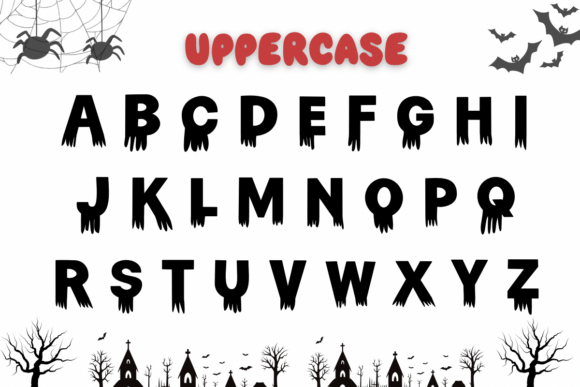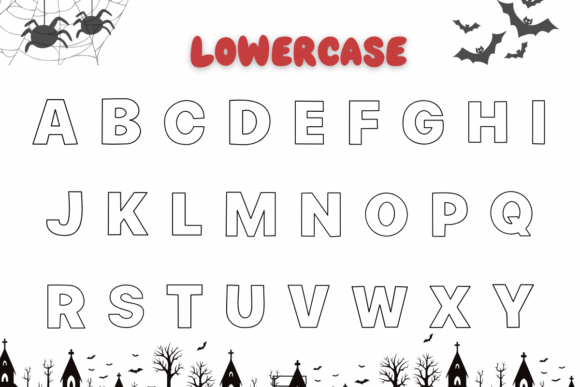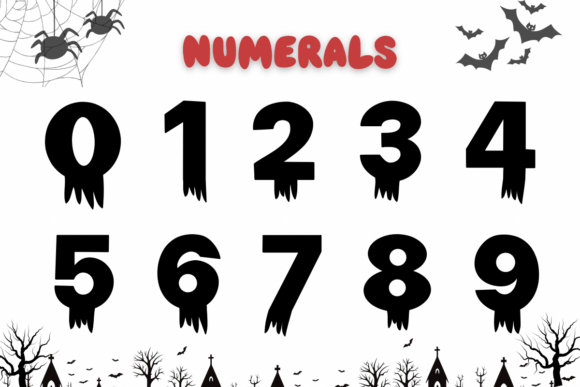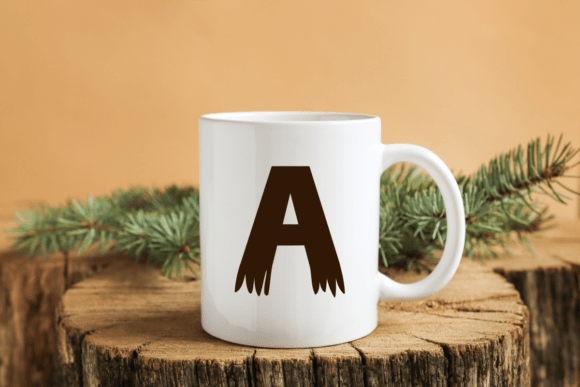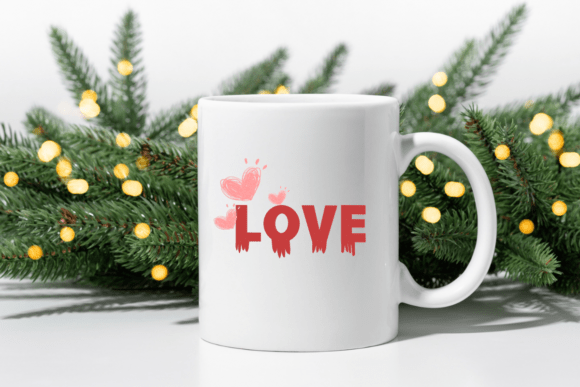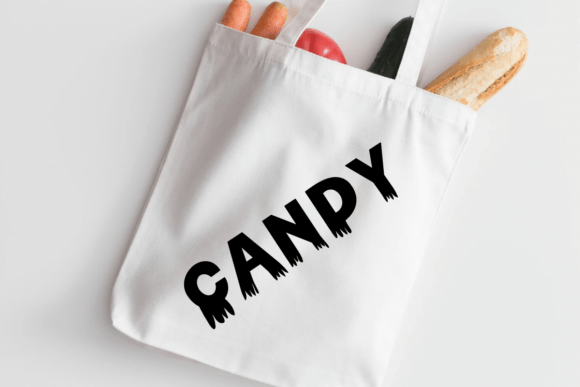
Introduction to Halloween Ink Drops Font
As a designer, have you ever found yourself stuck in a creative rut, searching for the perfect font to bring your high-quality Halloween-themed project to life? Perhaps you’re brainstorming ideas for a spooky social media campaign or designing a hauntingly beautiful poster for a local haunted house attraction. Whatever your creative endeavor may be, you’re in luck – the Halloween Ink Drops Font is here to add a touch of eerie elegance to your design.
This free download is a game-changer for designers looking for a unique and versatile design resource that’s sure to captivate audiences. With its bold, dripping ink-like details and clean geometric base, the Halloween Ink Drops Font is perfect for creating eye-catching graphics with a transparent background that’s sure to stand out.
Whether you’re working on a children’s spooky storybook or designing a haunted house banner, the Halloween Ink Drops Font is an ideal choice for adding a touch of Halloween magic to your design. In this article, we’ll delve deeper into the world of this enchanting font and explore its many uses and applications.
Key Features of Halloween Ink Drops Font
- Unique, high-quality design ideal for creative projects, such as spooky Halloween invitations, greeting cards, and party decorations.
- Perfect for designers and crafters looking to add a spooky touch to their creative projects, with a unique and creative design that’s sure to stand out.
Honest Review: Halloween Ink Drops Font
I recently stumbled upon the Halloween Ink Drops Font, and I’m excited to share my thoughts on this spooky design resource. As a designer, I’m always on the lookout for high-quality fonts to elevate my creative projects. This font definitely fits the bill.
- ✨ Unique and creative design: The Halloween Ink Drops Font has a one-of-a-kind aesthetic that’s perfect for adding a touch of whimsy to your designs.
- ✨ Transparent background: The font’s transparent background makes it easy to layer over other design elements and create a seamless look.
However, I do have a few caveats to mention:
- ⚠️ Limited character set: The font’s character set is relatively limited, which may not be suitable for complex text-based designs.
- ⚠️ Not ideal for small text: The font’s design may not be readable at small text sizes, so it’s best to use it for larger headings or titles.
Overall, I’m impressed with the Halloween Ink Drops Font’s unique design and transparent background. While it may have some limitations, it’s a great resource for designers looking to add a touch of Halloween flair to their creative projects.
How to Use Halloween Ink Drops Font
The Halloween Ink Drops Font is a high-quality design resource perfect for adding a spooky touch to your creative project. This font features a unique, hand-drawn design with a transparent background, making it easy to use in a variety of design applications.
You can use the Halloween Ink Drops Font in a variety of design applications, including:
– Add the font to your design and use it to create spooky invitations, social media graphics, and more.
– Use the font to create high-quality graphics and illustrations for your creative project.
– Add the font to your presentations and documents to give them a unique, creative touch.
Getting the Most Out of the Font
To get the most out of the Halloween Ink Drops Font, try using it in combination with other design elements, such as spooky graphics and illustrations. Experiment with different font sizes and colors to create a unique, eye-catching design.
The Halloween Ink Drops Font is perfect for a variety of creative projects, including:
- Halloween-themed invitations and party decorations
- Spooky social media graphics and advertisements
- Horror-themed movies and book covers
Does the Halloween Ink Drops Font have a transparent background?
Yes, the Halloween Ink Drops Font has a transparent background, making it perfect for designs that require a clear or transparent background. This feature allows designers to easily overlay the font on top of images or other design elements.